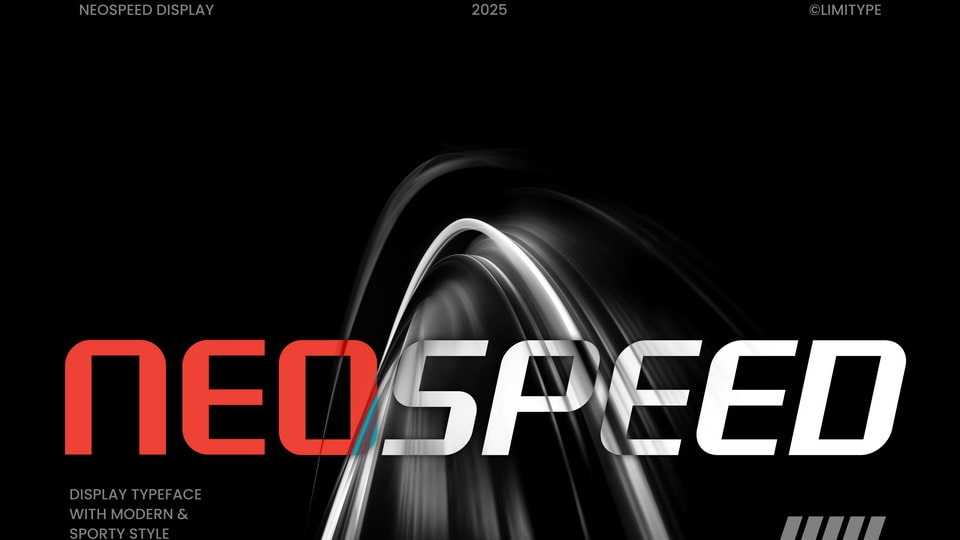
Download Neospeed font, a futuristic typeface with dynamic and modern forms, perfect for designs that demand a sense of speed, energy, innovation, and forward thinking aesthetics.